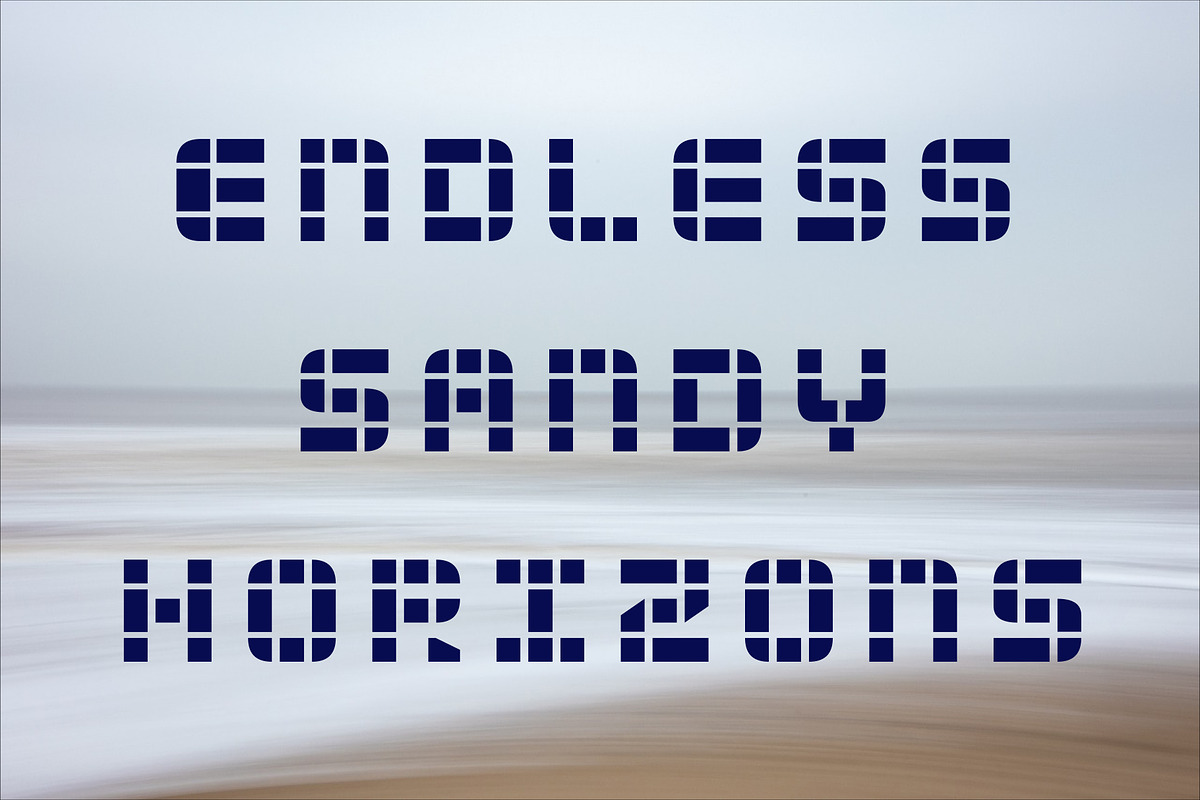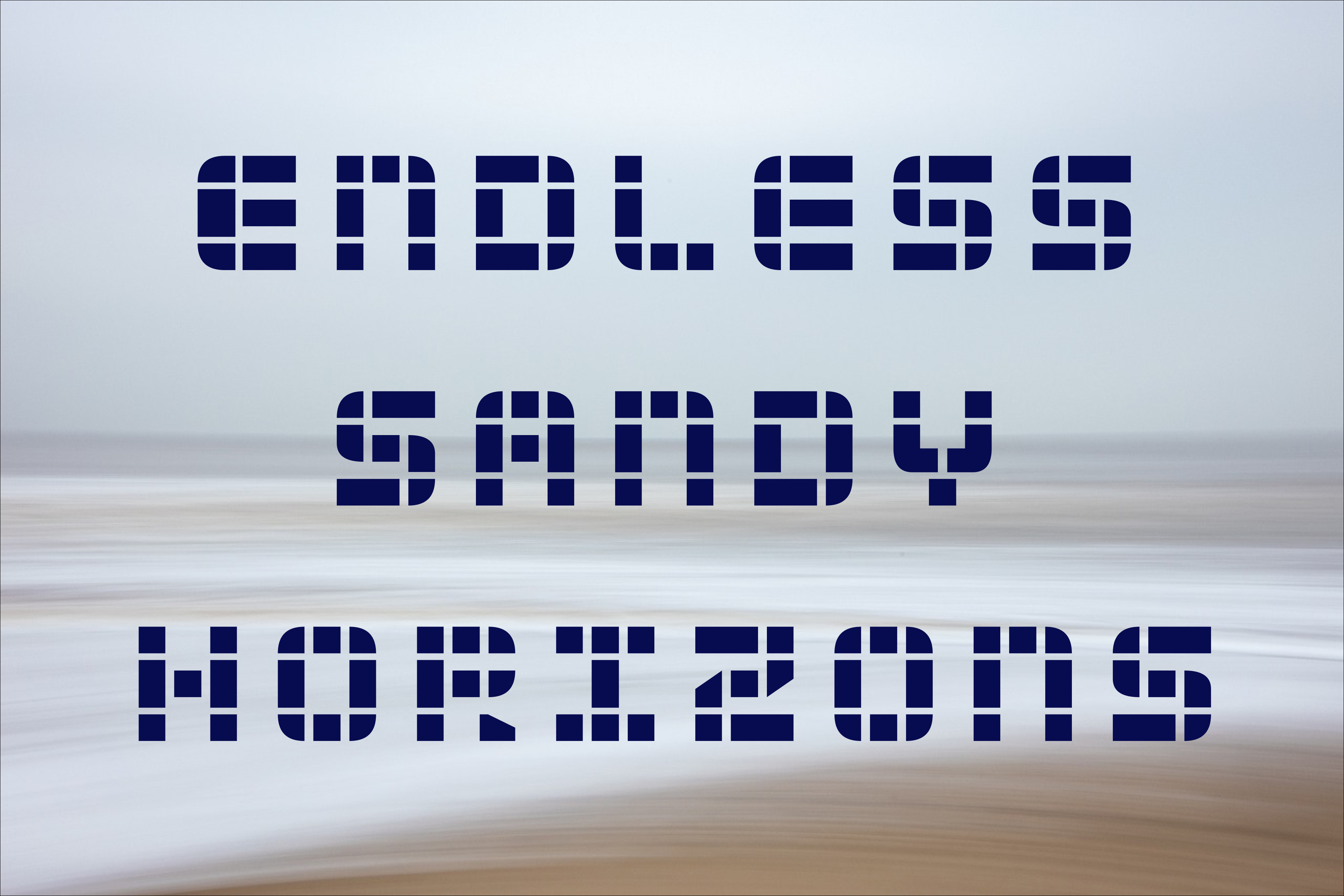
The Modern Typeface for Futuristic
Elevate Your Design with Sleek and Contemporary Typography
Introducing 2Tech, a cutting-edge font designed to bring a futuristic and clean aesthetic to your projects. Perfect for tech-related interfaces, digital platforms, and innovative branding, 2Tech combines geometric precision with a sleek, modern feel.
Each character is meticulously crafted to ensure readability and style, making it an ideal choice for UI/UX designers, developers, and creatives looking to elevate their work. Whether you're designing for web, mobile, or print, 2Tech provides the versatility and sophistication needed to make your project stand out in the digital age.